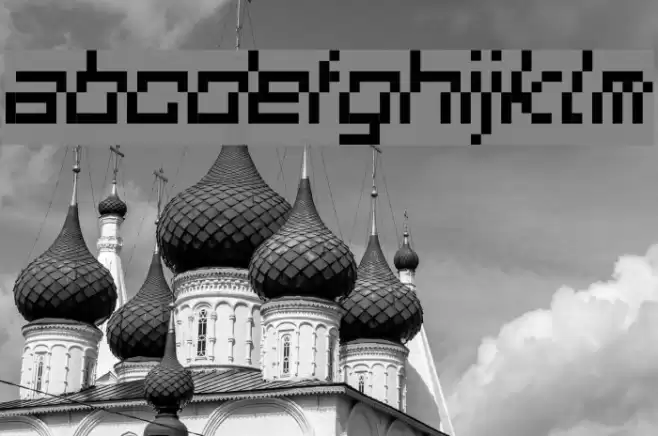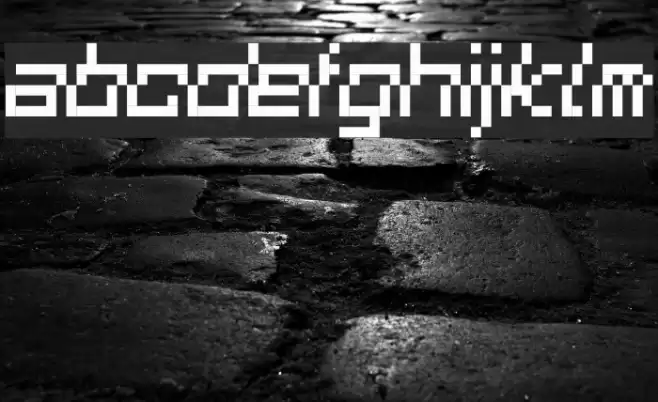
SquareDance01 Font
SquareDance01 Description
This font features a distinct pixelated style, reminiscent of early digital displays and retro video games. Each character is constructed with a grid-like precision, giving it a blocky, geometric appearance. The uniformity in the design creates a cohesive look across all characters, making it ideal for projects that require a digital or vintage tech aesthetic. The font maintains a consistent weight throughout, with no variation in stroke thickness, emphasizing its low contrast. Its unique style is both playful and nostalgic, capturing the essence of early computing and arcade games.
| Overall Style | Vintage |
| Use Case | Logos, Headlines, Digital Art |
| Proposed Projects | Ideal for retro video game graphics, digital art projects, tech-themed posters, and nostalgic branding. |